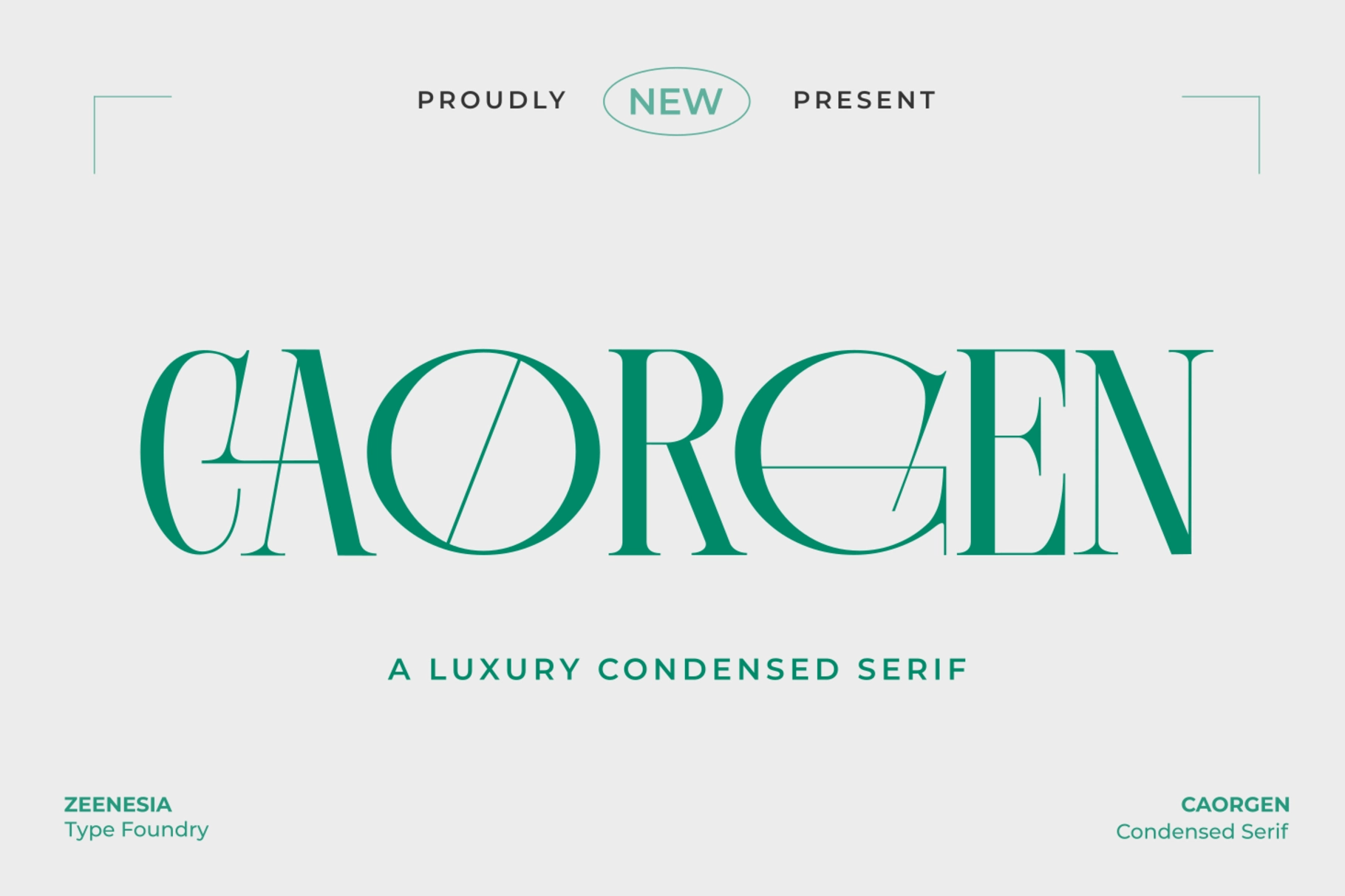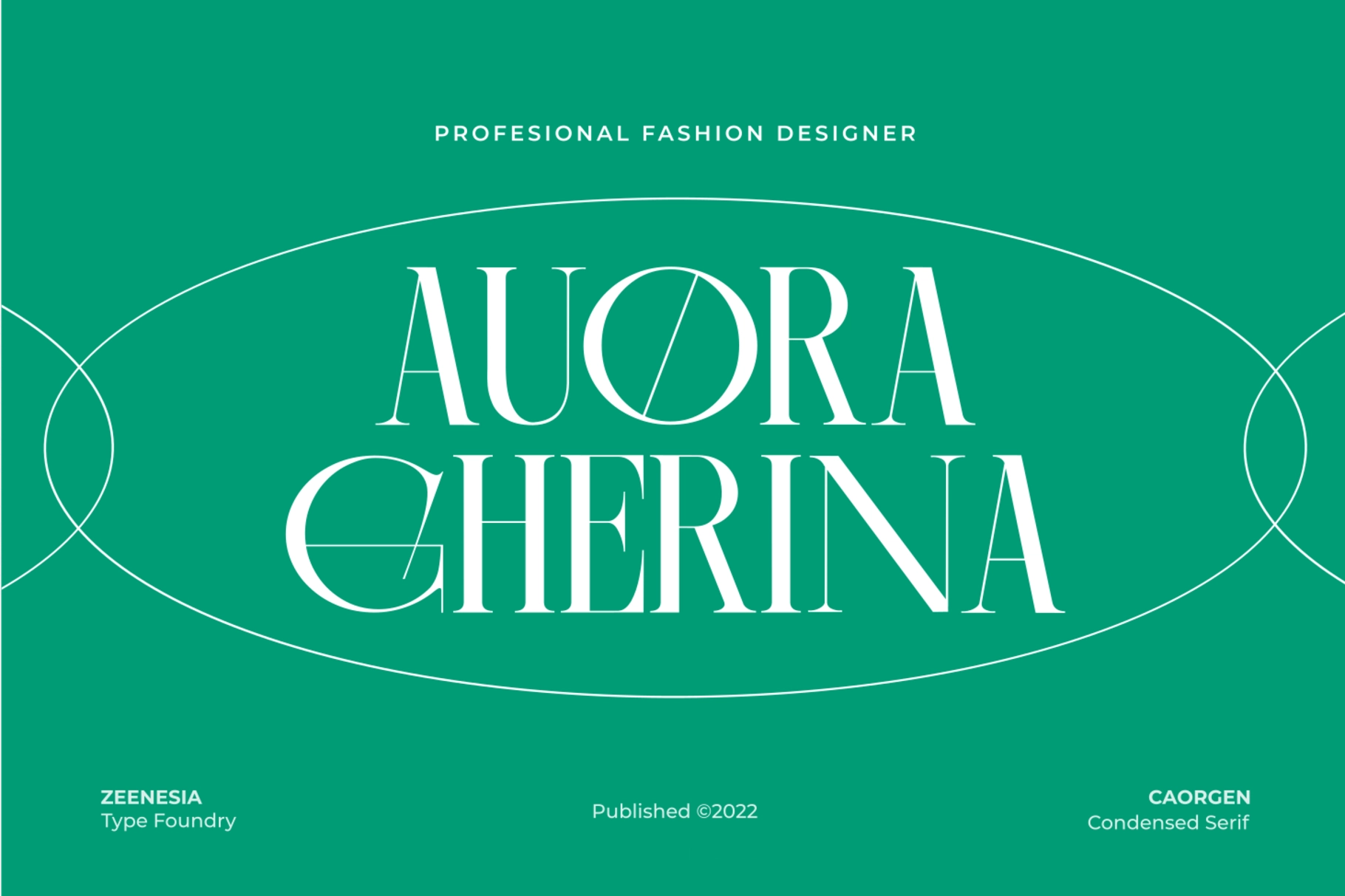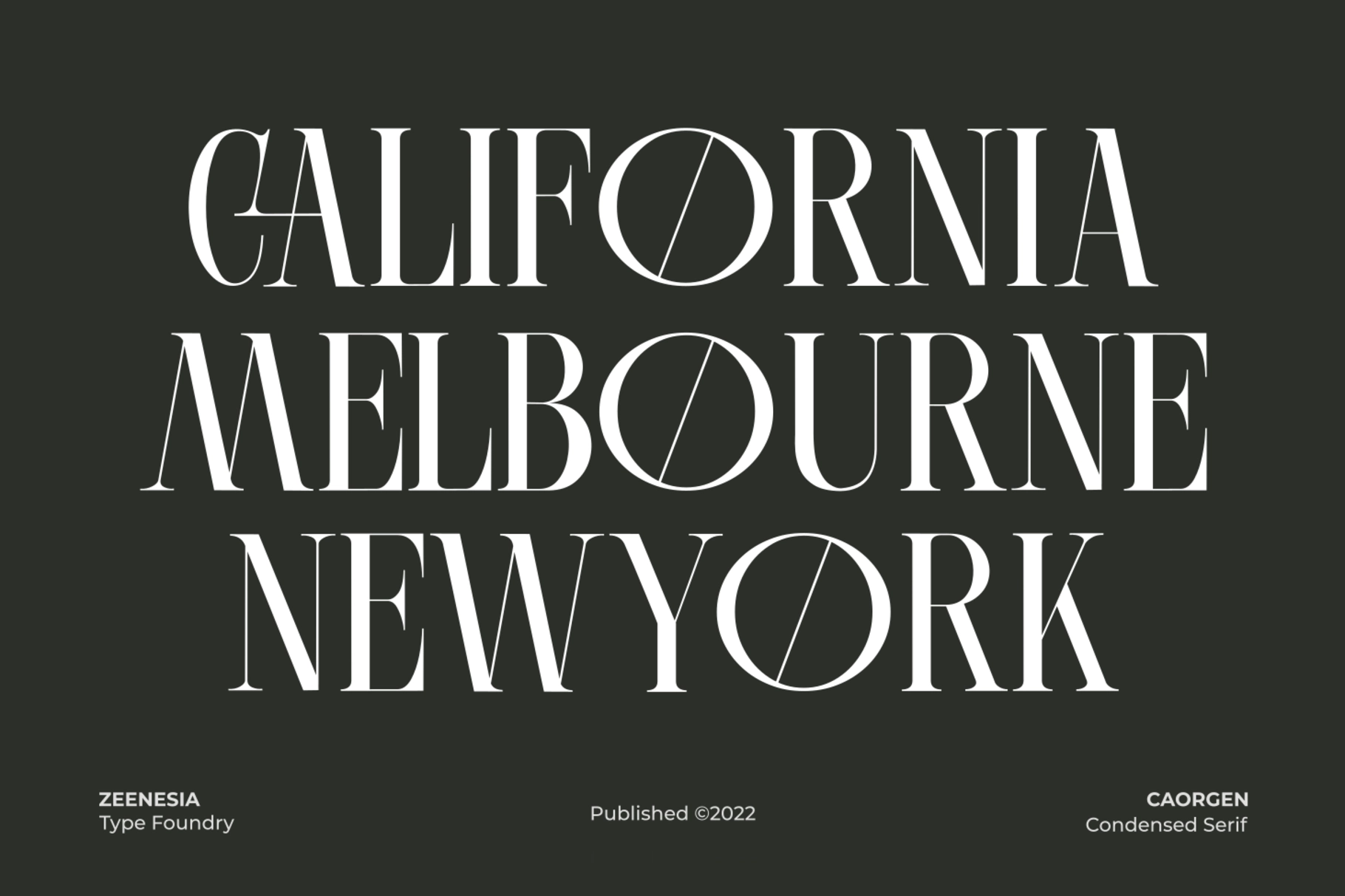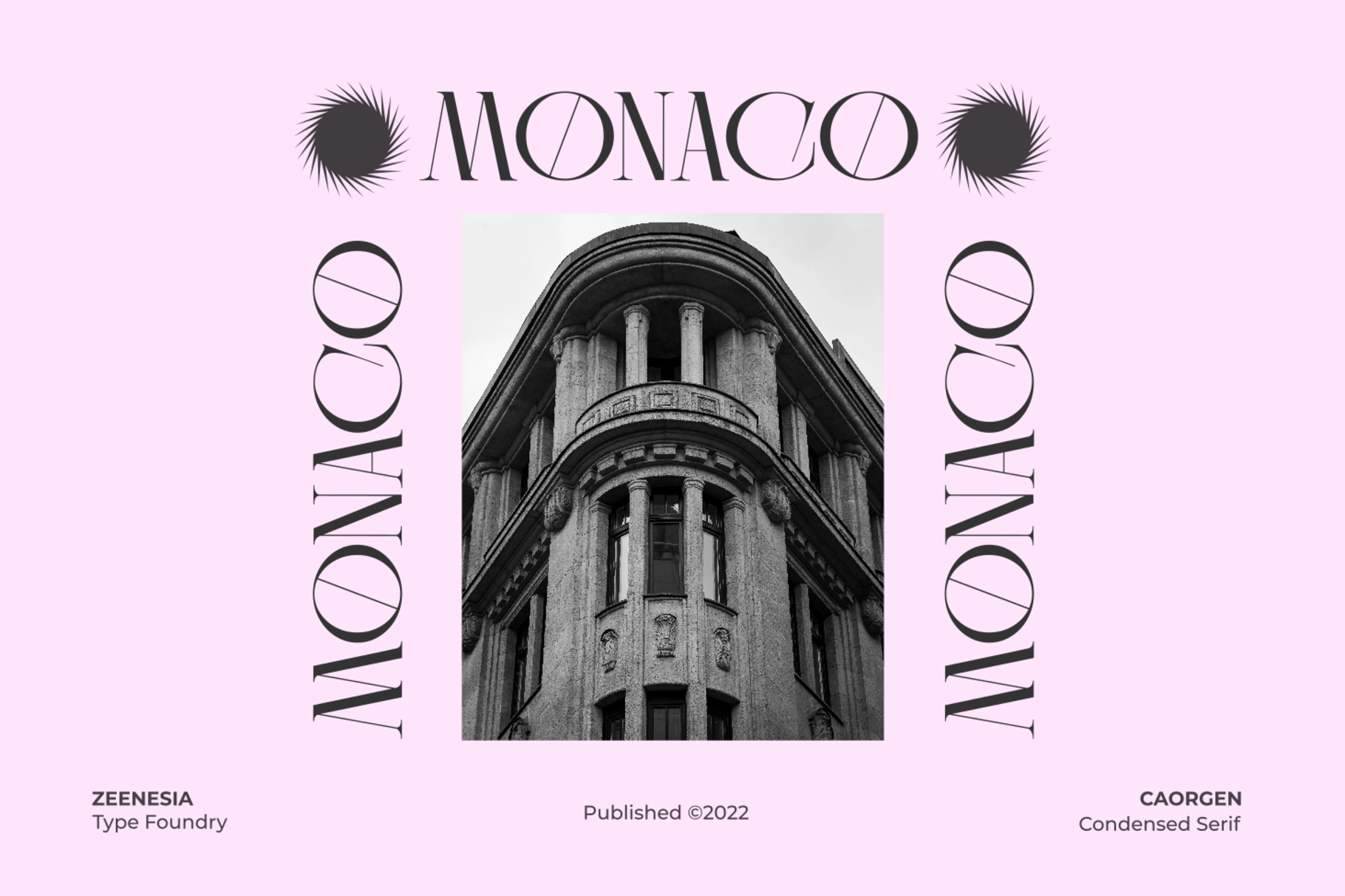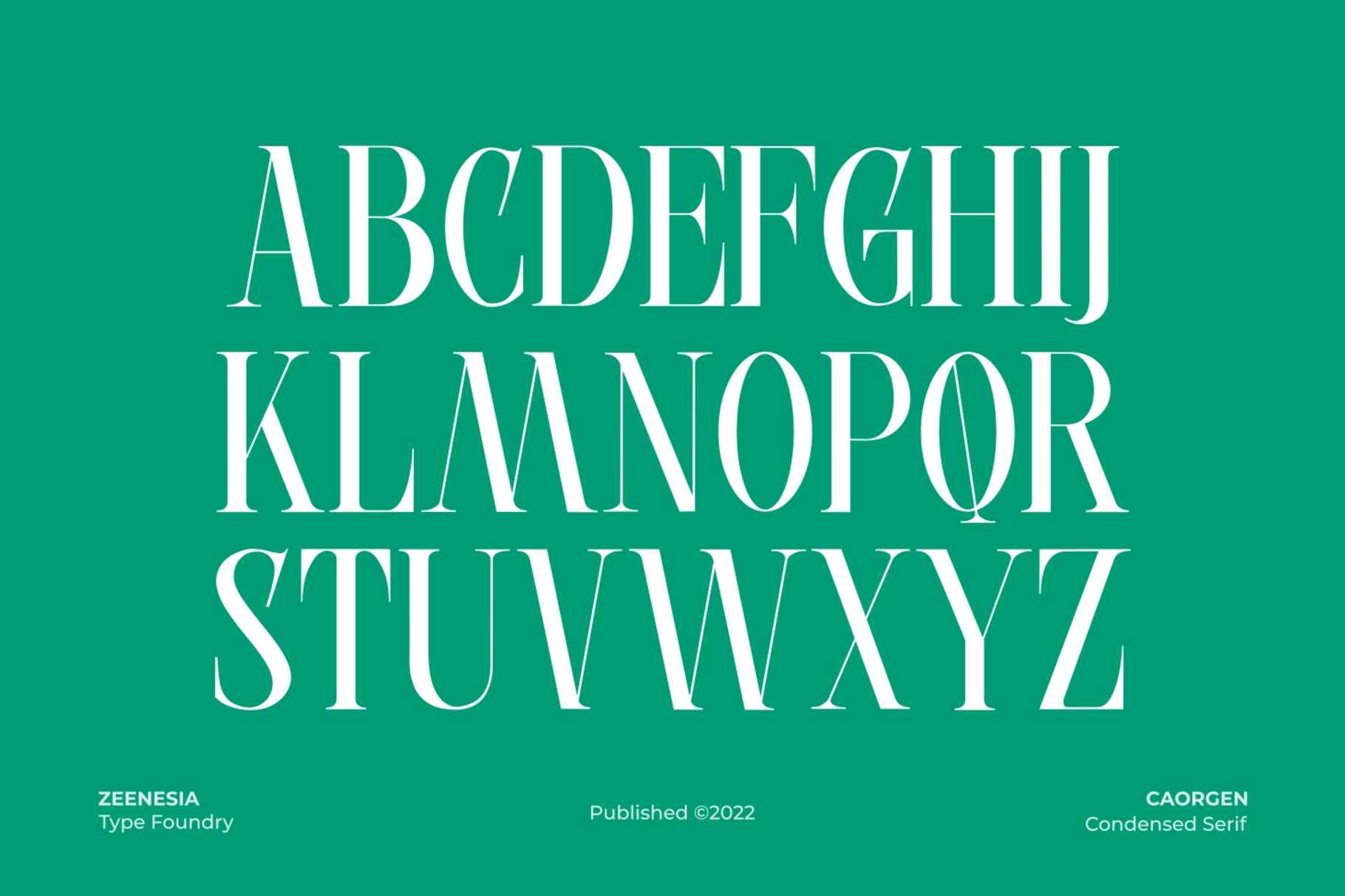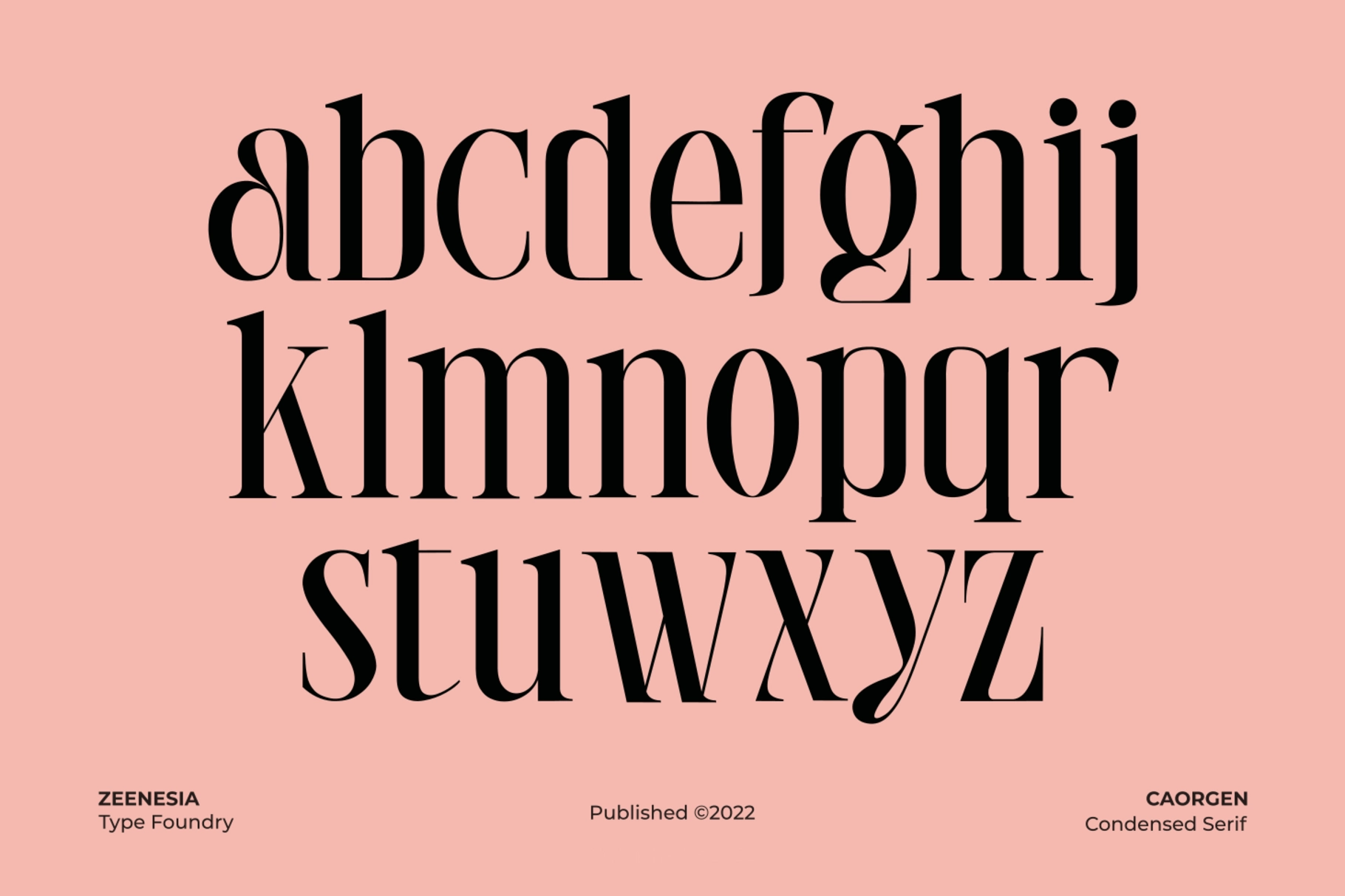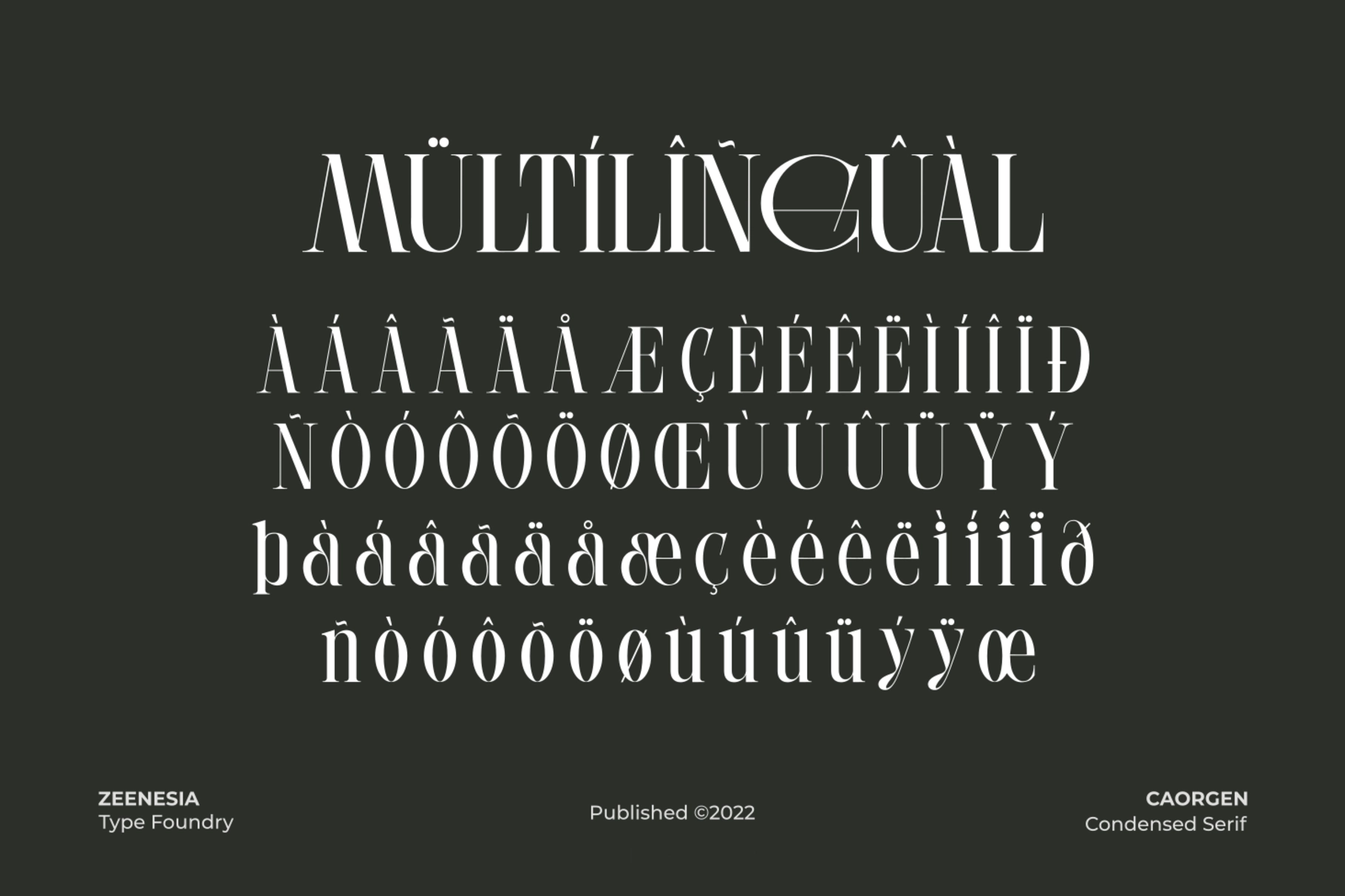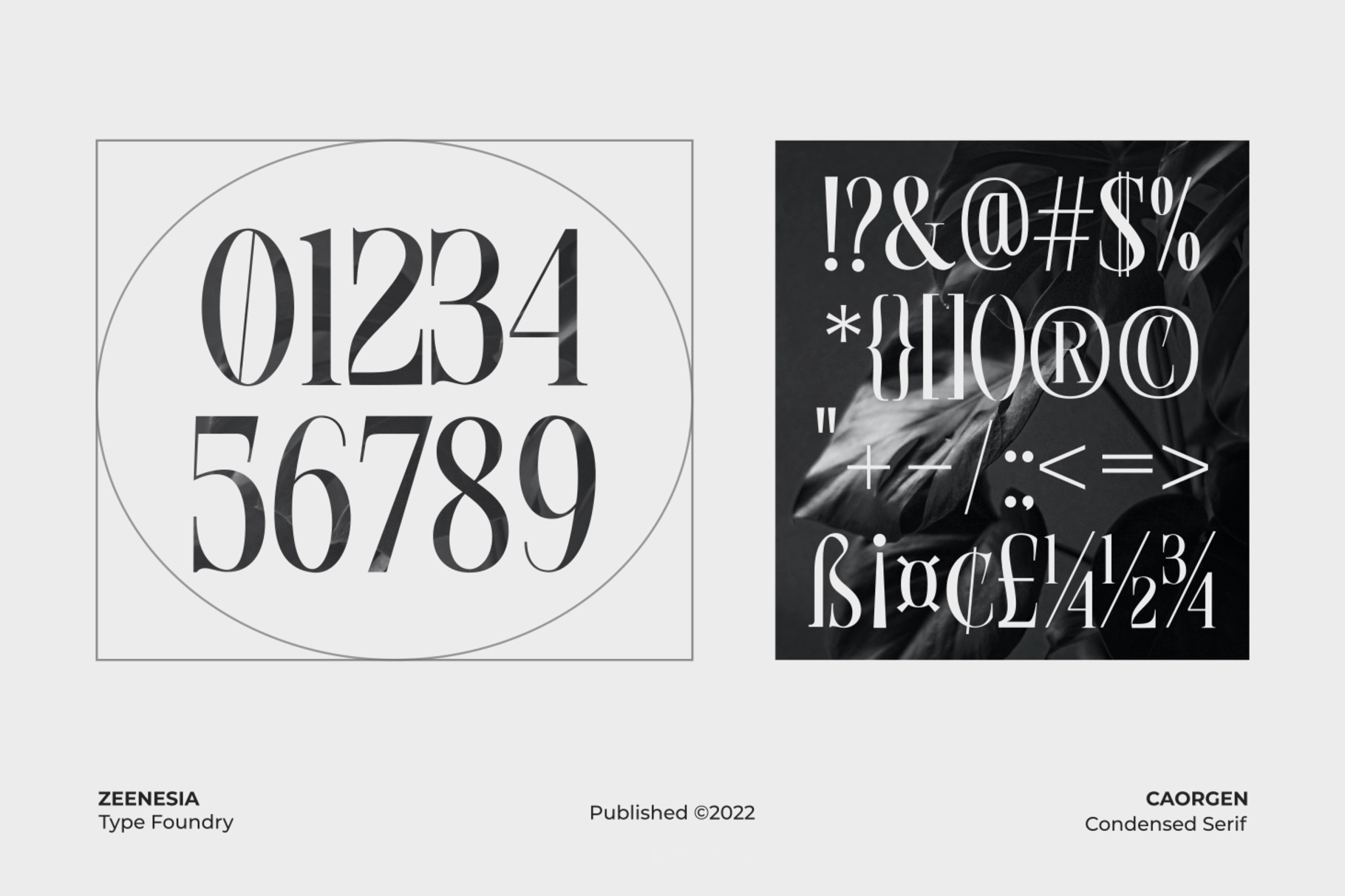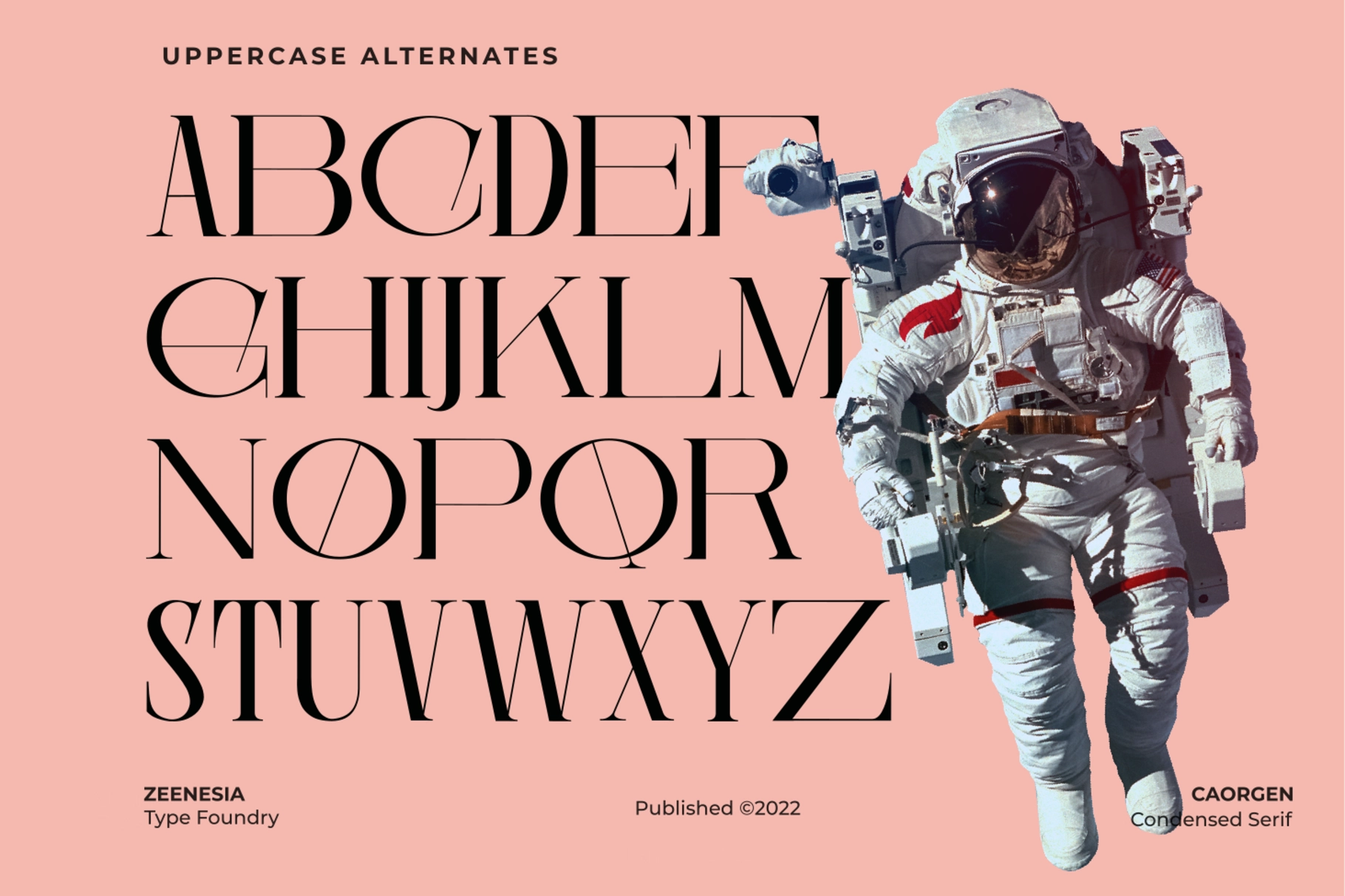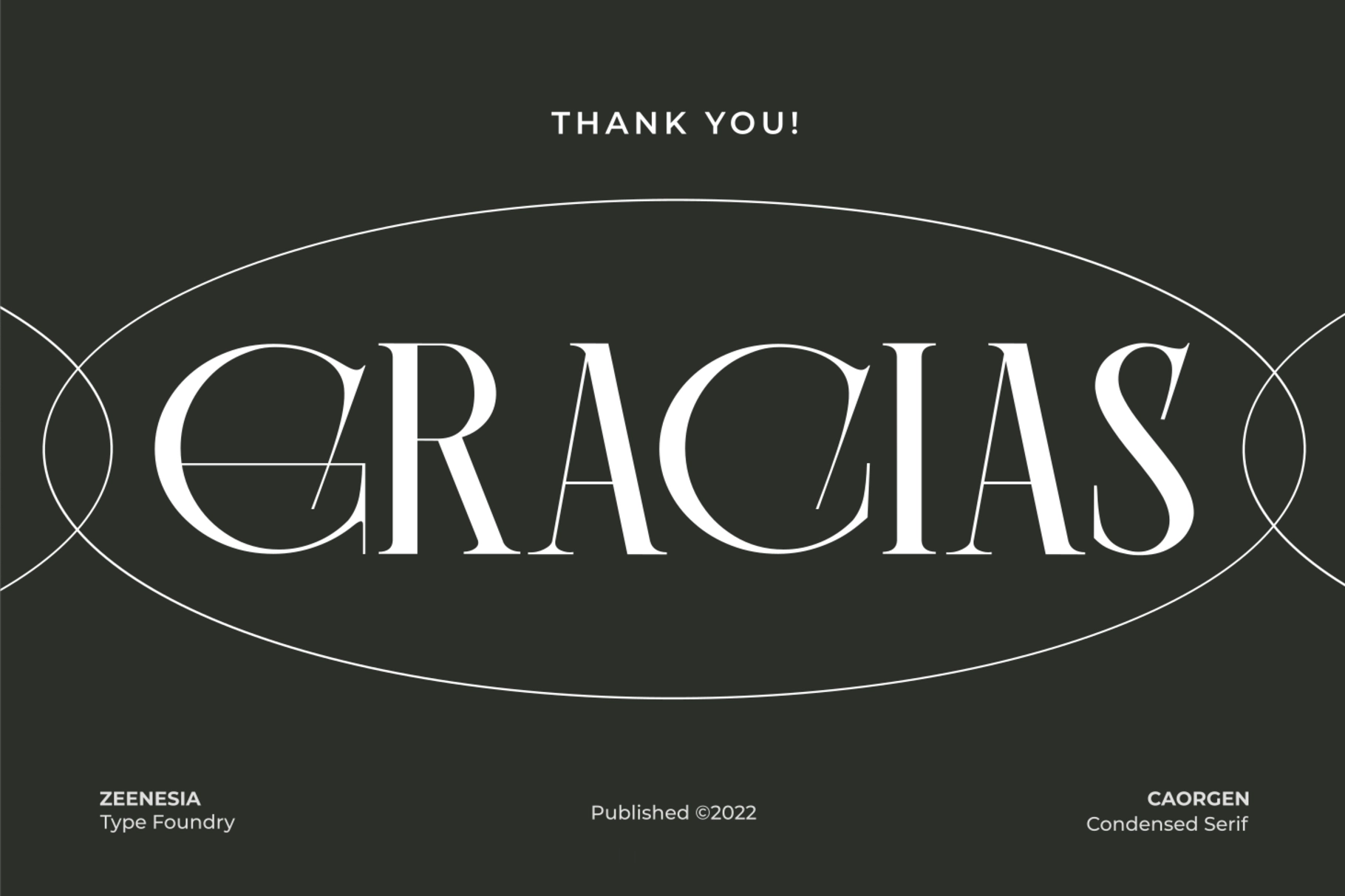
Caorgen - Fashion Display Serif Font
This fashion serif typeface has condensed proportions, high-contrast strokes, and sculptural letterforms made for polished editorial typography. Its elegant curves and distinctive ligatures give headlines a luxury character, with a sharp visual rhythm that works especially well in large sizes.
Caorgen is a strong choice for fashion branding, magazine titles, beauty packaging, boutique logos, perfume labels, editorial spreads, lookbooks, luxury posters, social media headlines, art catalogs, premium product campaigns, and more. PUA encoding makes glyphs and ligatures easy to access, giving designers extra control over refined typographic details.